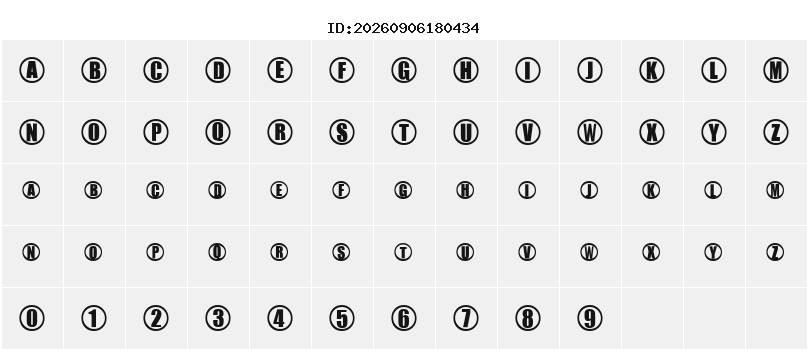
TM Sprint Veloche Preview
• Font Name: TM Sprint Veloche
About TM Sprint Veloche.ttf
TM Sprint Veloche.ttf is a modern, elegant sans-serif font designed for ultimate readability and visual harmony. Perfect for branding, headlines, web design, and print materials.